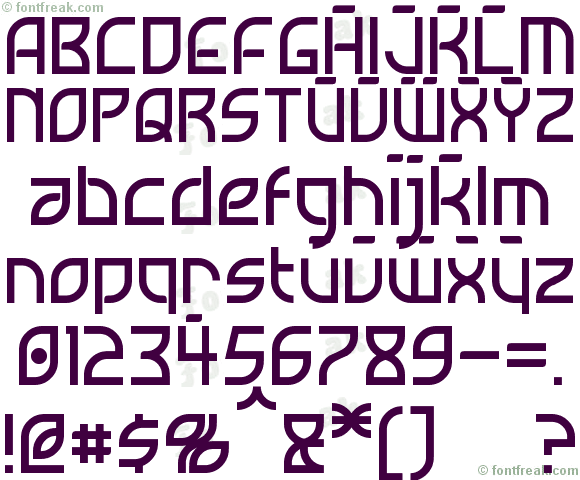
Neostar
Neostar, designed by Neale Davidson in 2012, is a modern sans-serif typeface that captivates with its clean lines and geometric precision. This font exhibits a balanced stroke weight that maintains clarity while providing a contemporary appeal. The minimal contrast between thick and thin strokes enhances its readability, making it an excellent choice for various design applications. The spacing is thoughtfully crafted, ensuring that each letter stands out without overwhelming the viewer, which is particularly valuable in design contexts where legibility is paramount.
Neostar shines in a multitude of use cases. Its structured yet friendly aesthetics make it ideal for branding projects, especially for small businesses seeking to establish a professional image. Additionally, this font works beautifully in digital media, including websites and social media graphics, where it can enhance online presence. It is also well-suited for print materials such as flyers, posters, and brochures, delivering a modern touch to marketing collateral. For designers specializing in event graphics, Neostar can add a sophisticated flair to wedding invitations and save-the-dates, ensuring that essential details are communicated with style.
What sets Neostar apart is its ability to blend simplicity with modernity, allowing it to adapt to various design needs while maintaining a distinctive character. Whether you are creating branding elements or digital content, Neostar ensures your message is delivered with clarity and sophistication, making it a standout choice in the world of typography.